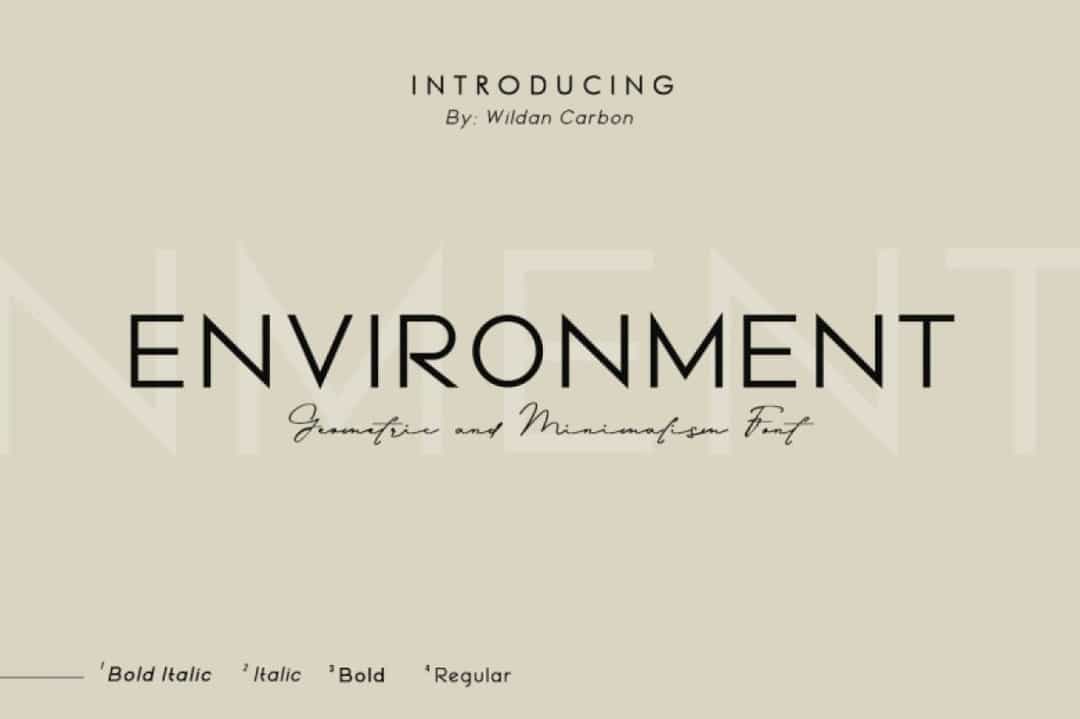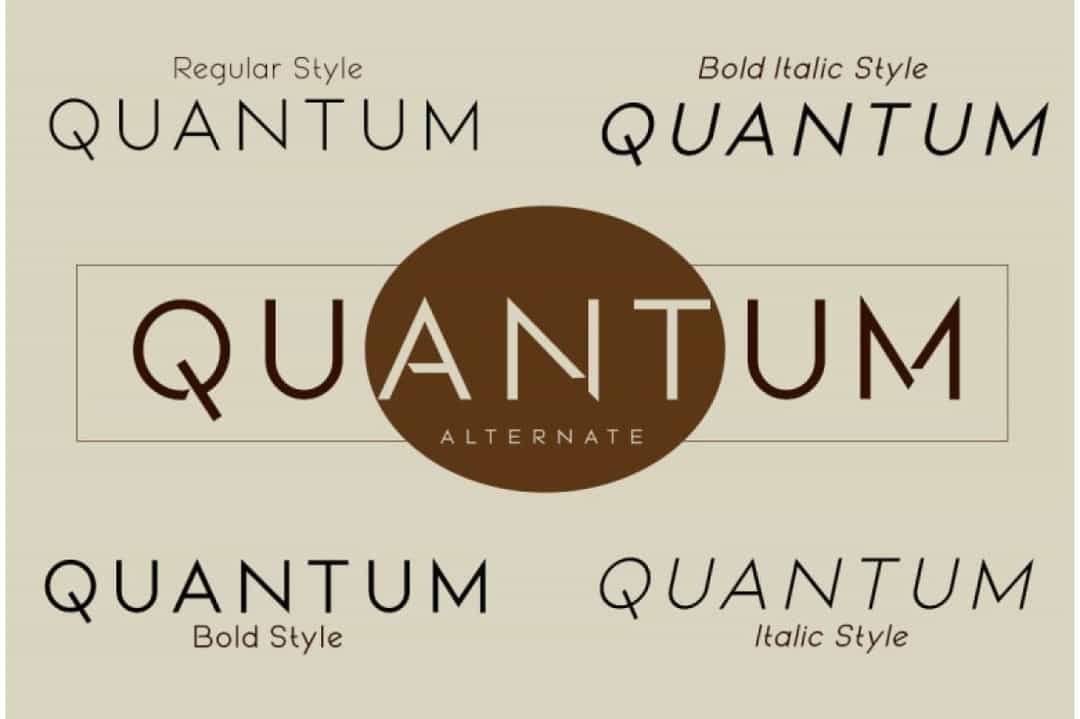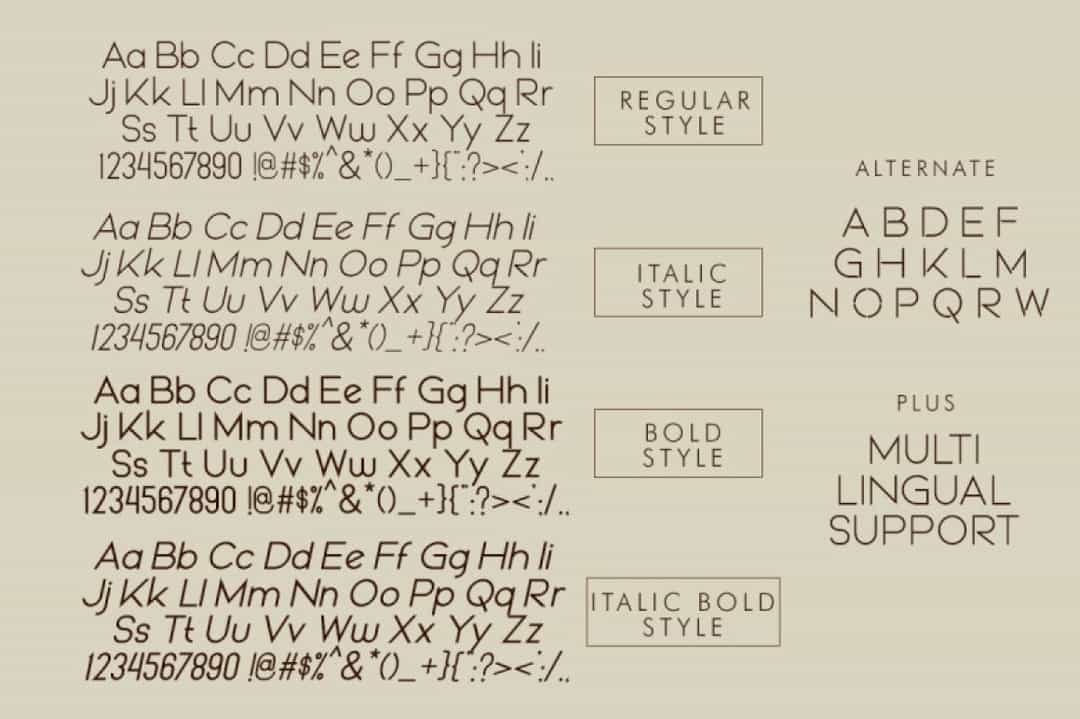
Environment font is an elegant and geometric sans serif font designed specifically to showcase products elegant logo designs or invitation cards. Environment Bold has four weights and four different personas, such as Environment Italic Italic And Invorenment Normal.